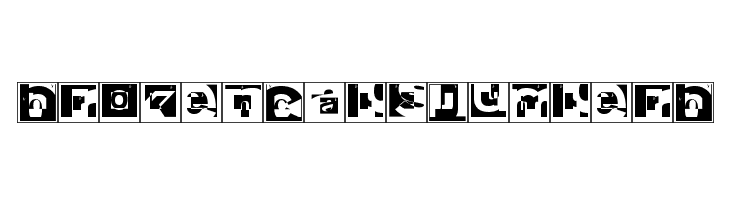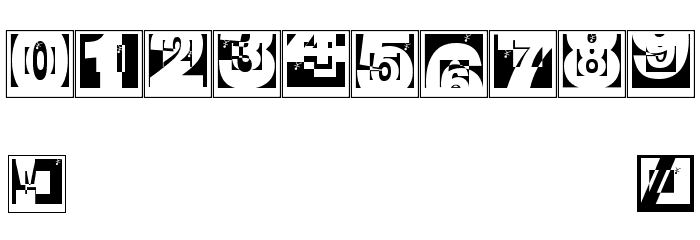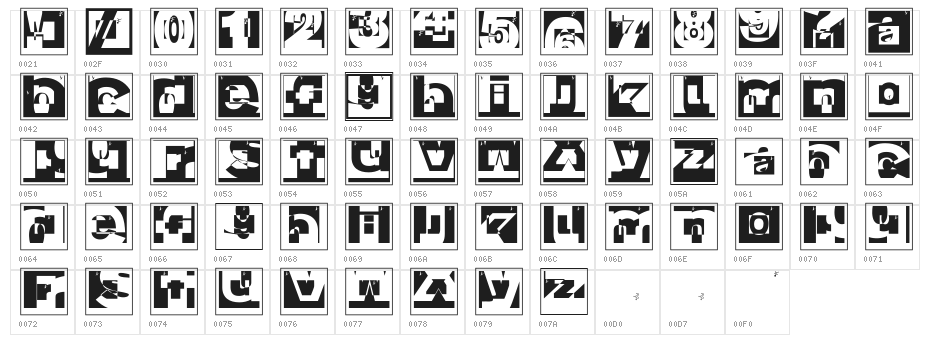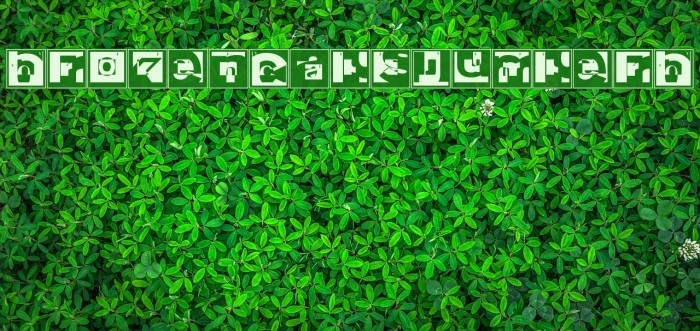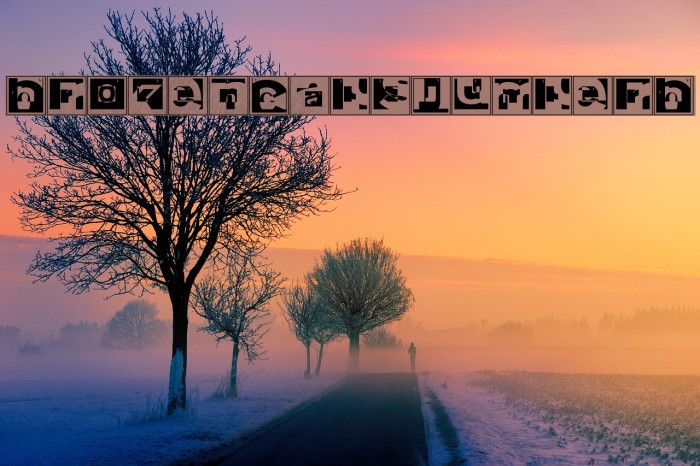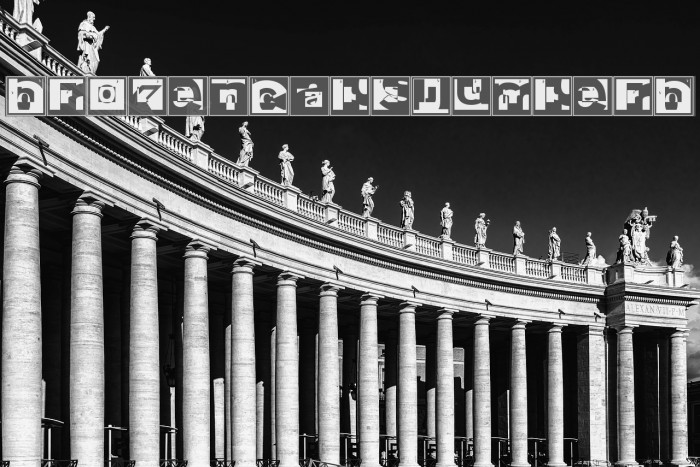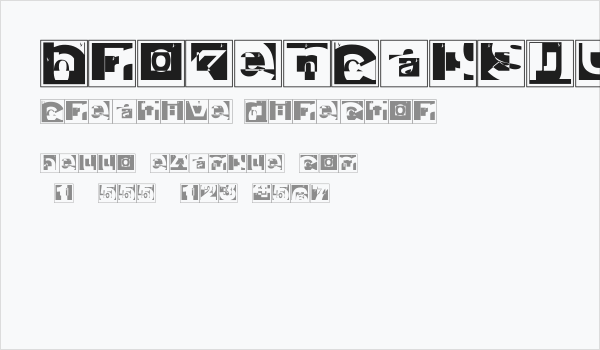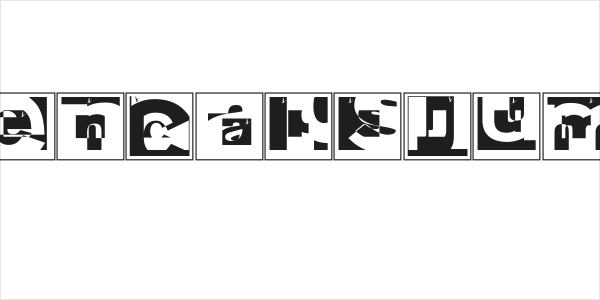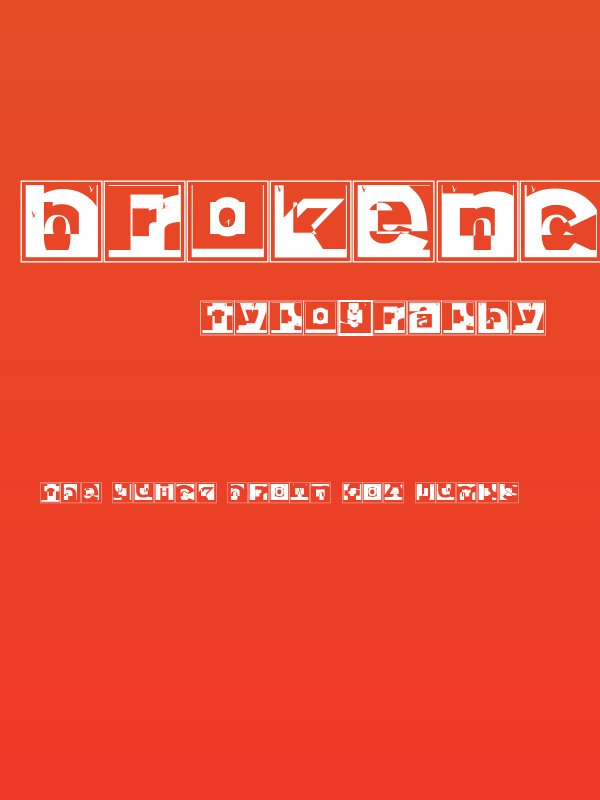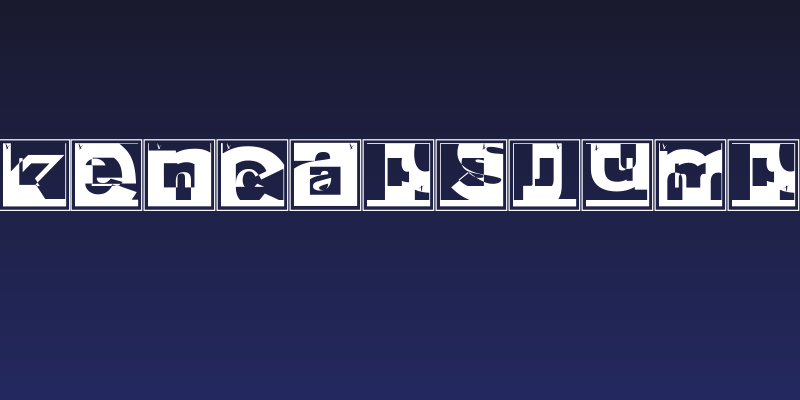
This font features a bold and dynamic design with a distinctly modern and abstract aesthetic. Each character is enclosed in a square, creating a unique visual effect that combines geometric shapes with fragmented letterforms. The uppercase and lowercase letters maintain a consistent style, with sharp angles and contrasting black and white elements that give the font a striking appearance. The numbers and special characters follow the same design principles, ensuring a cohesive look across all glyphs. This font's unconventional style makes it a standout choice for projects that require a bold and artistic touch.
| Use Case | Logos, Posters, Album covers |
| Proposed Projects | Ideal for modern art projects, album covers, posters, and branding that seeks to make a bold statement. |